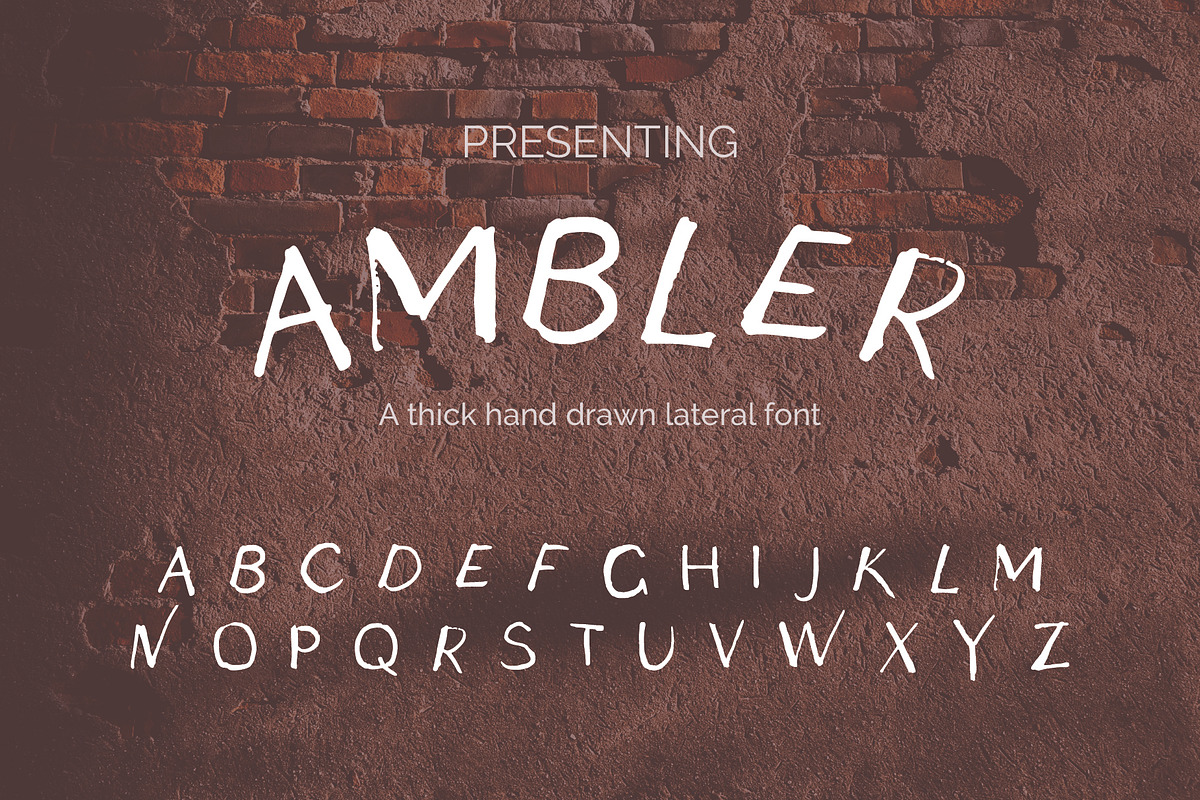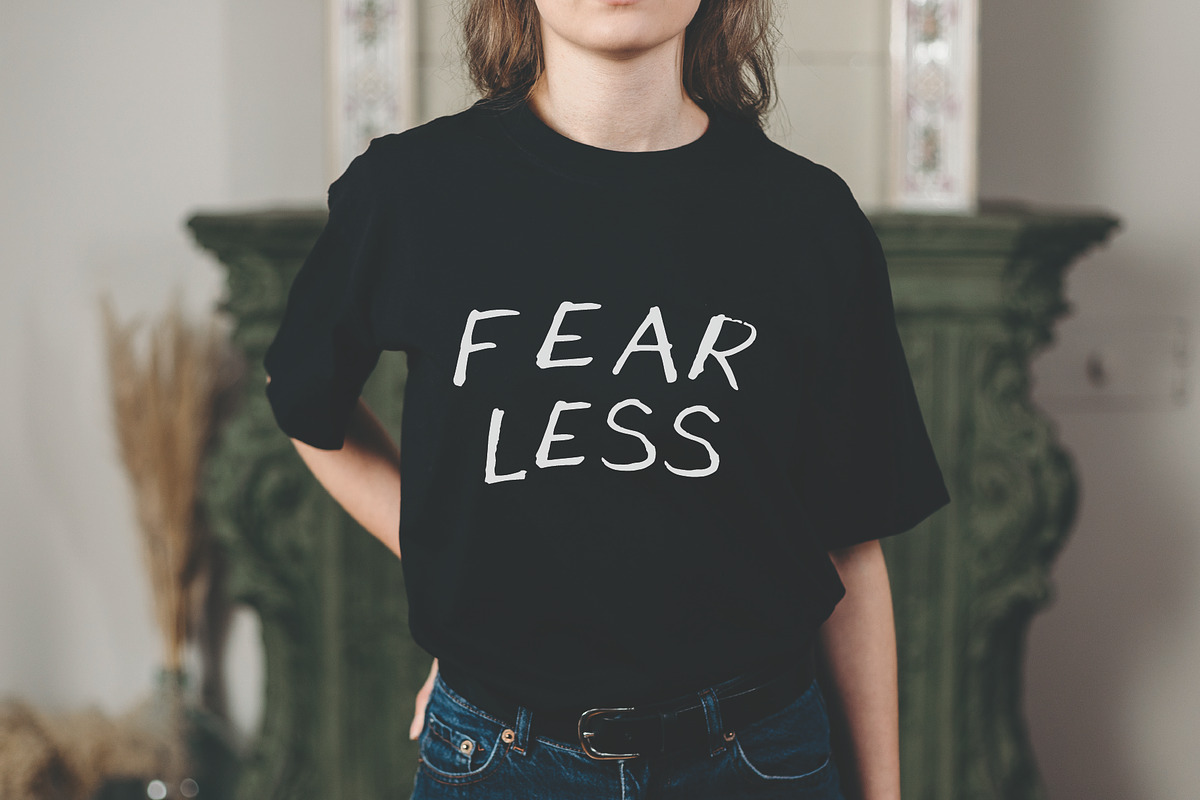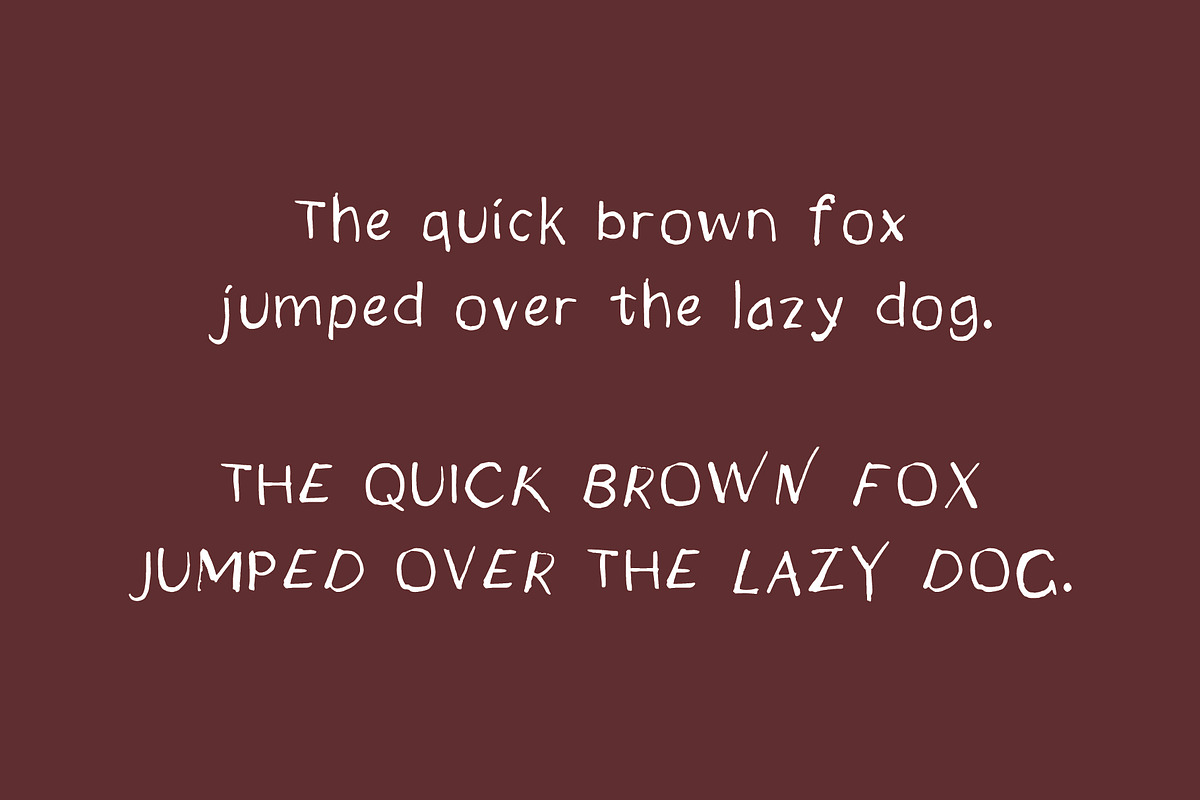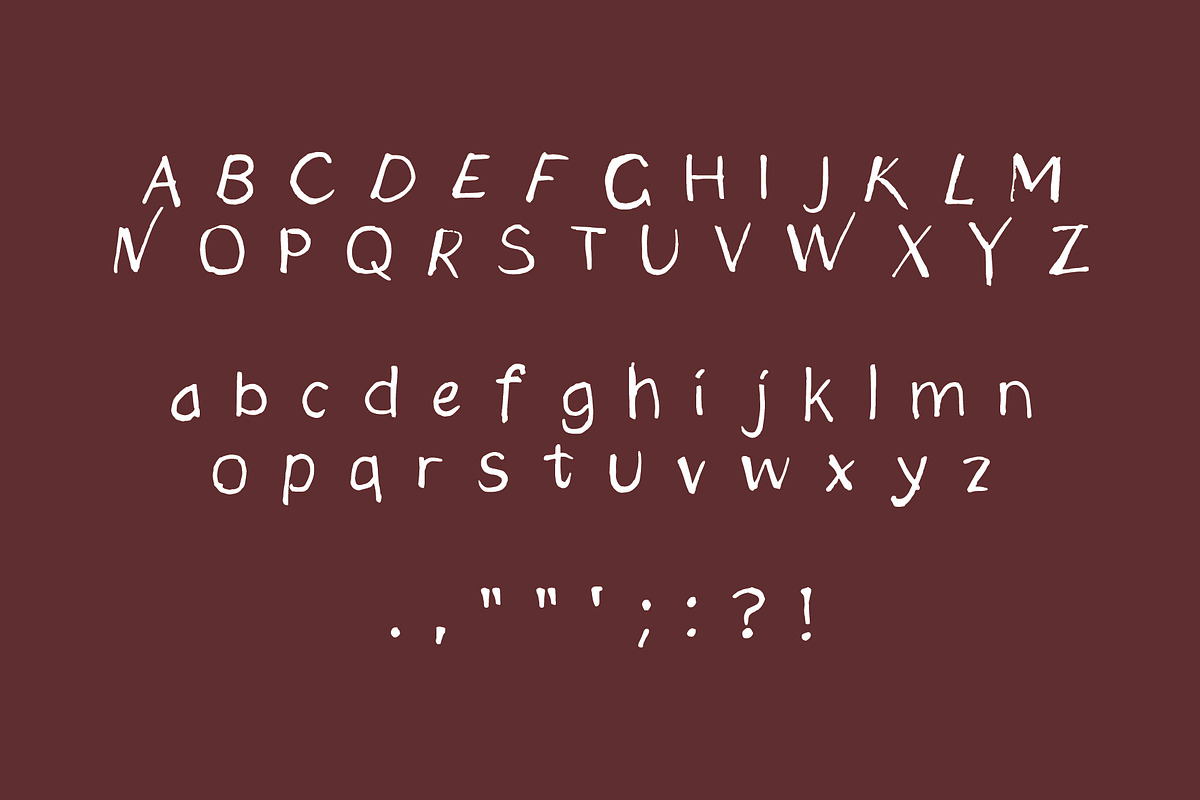
AMBLER Hand Drawn Font
Ambler a hand drawn font!
You can use on-top of textures, inspirational quotes, for photos, personal designs.
Please note: This font does have a lower case option, but no numbers.